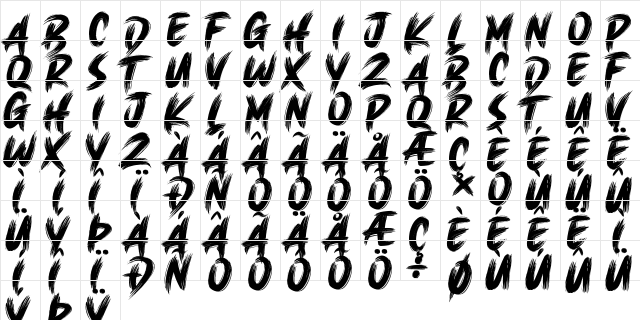
Brush King Regular
| Designer | Rangga Singgih Subekti |
Design Context for Brush King Typeface
Brush King brings a calligraphic fluidity to the page — its connecting strokes and expressive curves give it an unmistakably human quality.